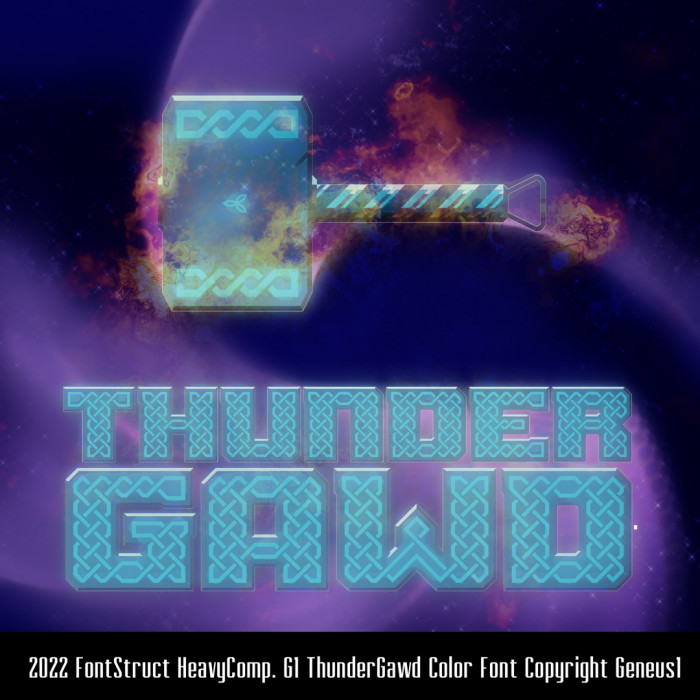
• G1 ThunderGawd. Opening day for Marvel's Thor Love and Thunder movie AND final day for the FS HeavyComp! Time to kill two birds with one stone, or maybe feed two birds with one scone.
HeavyComp entry #3. This font features...
• Microserifs
• 7 Color layers
• Chamfered Bevels
• Interconnected Celtic knot patterns with shaded underlayments
• Full weaving pattern on uppercase/numbers, vertical patterns on lowercase
• Thor's hammer Mjolinr on the +, broken hammer on the -
A heavy-hitting entry, really well done patterns and bevels.
G1+!! I love this kind of fonts!
The Q looks like a messed up zucchini
What does the "q" look like in the font?
The armenian letter Ը?
Fix the font please!